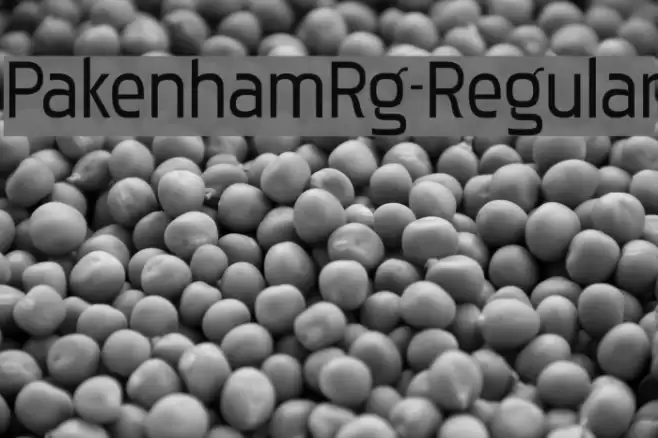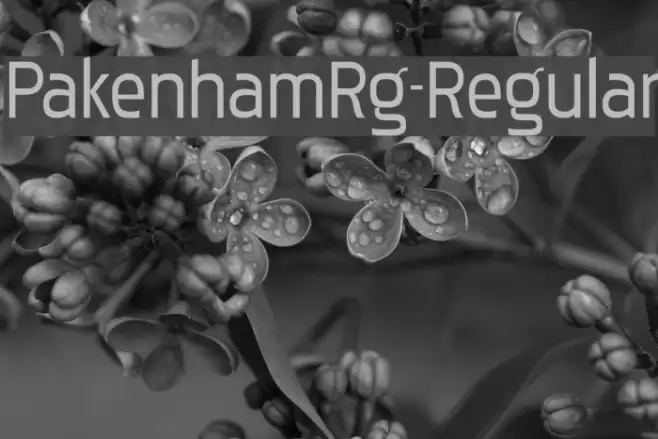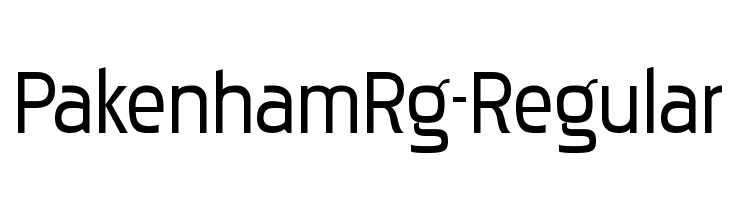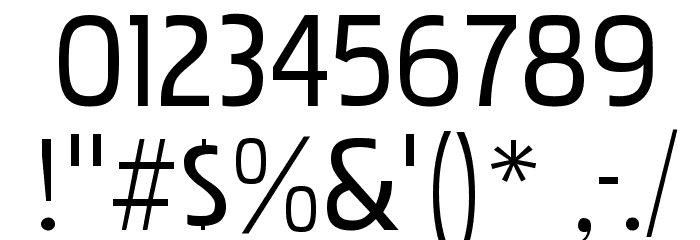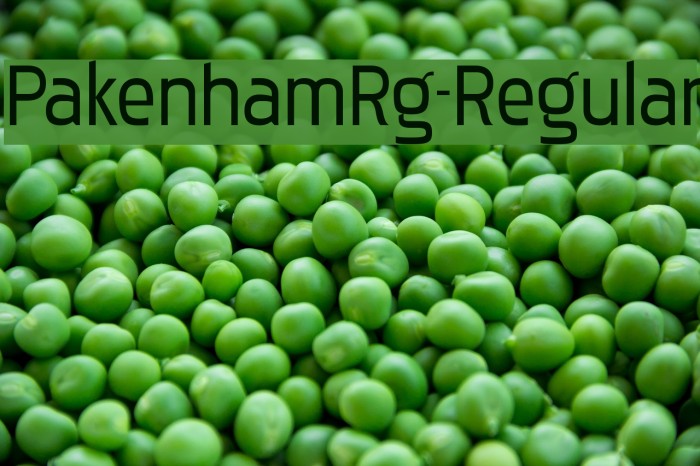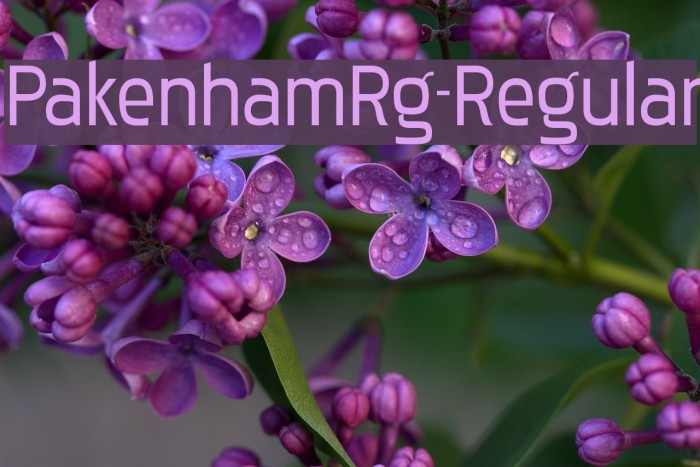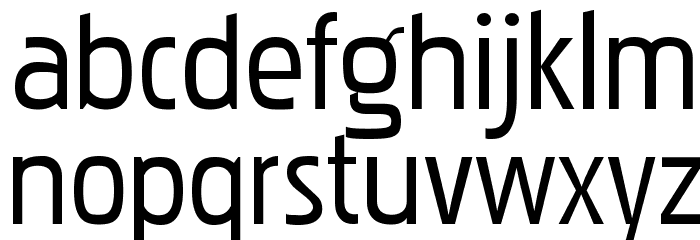
PakenhamRg-Regular Font
PakenhamRg-Regular Description
This font exhibits a clean and modern sans-serif style, characterized by its geometric shapes and uniform stroke widths. The uppercase letters are tall and slightly condensed, giving a sleek and professional appearance. The lowercase letters maintain a consistent height, contributing to a harmonious and balanced look. The numerals are clear and easily distinguishable, making them suitable for various applications. Special characters are well-defined, ensuring readability and versatility. Overall, this font is designed for clarity and efficiency, making it ideal for both digital and print media.
A modern, geometric sans-serif font with clean lines and uniform strokes from Uncategorized fonts.
- Proposed Projects: Ideal for corporate branding, web design, user interfaces, and editorial layouts.